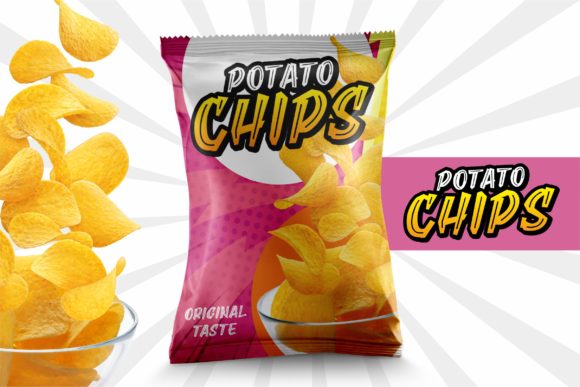
Introducing Leader Kids Font: Elevate Your Designs with a Fun and Unique Display Font
In the world of design, fonts play a crucial role in conveying the message and tone of a project. A well-chosen font can make all the difference in creating a lasting impression on the audience. If you’re looking for a font that can add a touch of fun and uniqueness to your designs, look no further than Leader Kids Font. In this article, we’ll explore the features and benefits of Leader Kids Font and how it can elevate a wide range of design projects to the highest level.
What is Leader Kids Font?
Leader Kids Font is a fun and unique display font designed to add a playful touch to your designs. Its distinctive style makes it perfect for a variety of projects, including branding, headings, wedding designs, invitations, signatures, logos, labels, and more. Whether you’re a designer, entrepreneur, or DIY enthusiast, Leader Kids Font is an excellent choice for anyone looking to create visually appealing and engaging designs.
Key Features of Leader Kids Font
- Unique and Fun Design: Leader Kids Font boasts a one-of-a-kind design that’s sure to grab attention. Its playful style is perfect for designs that require a touch of whimsy and personality.
- Highly Versatile: This font is incredibly versatile and can be used for a wide range of projects, from branding and advertising to wedding designs and personal invitations.
- Easily Readable: Despite its playful design, Leader Kids Font is easily readable, making it perfect for headings, titles, and short paragraphs of text.
Benefits of Using Leader Kids Font
Using Leader Kids Font can bring numerous benefits to your designs. Here are some of the advantages of incorporating this font into your projects:
1. Adds a Touch of Personality
Leader Kids Font adds a touch of personality to your designs, making them more engaging and memorable. Its unique design ensures that your projects stand out from the crowd and leave a lasting impression on your audience.
2. Enhances Brand Identity
For businesses and entrepreneurs, Leader Kids Font can be an excellent choice for branding and advertising projects. Its playful design can help create a friendly and approachable brand image, which is perfect for companies that want to connect with their audience on a personal level.
3. Perfect for Wedding Designs and Invitations
Leader Kids Font is also an excellent choice for wedding designs and invitations. Its elegant yet playful design makes it perfect for creating beautiful and memorable wedding materials, including invitations, programs, and place cards.
How to Use Leader Kids Font in Your Designs
Using Leader Kids Font in your designs is easy. Here are some tips to get you started:
1. Pair it with Other Fonts
Leader Kids Font can be paired with other fonts to create a unique and visually appealing design. Try pairing it with a serif font for a classic look or a sans-serif font for a modern feel.
2. Experiment with Different Sizes and Colors
Leader Kids Font can be used in various sizes and colors to create a dramatic effect. Experiment with different sizes and colors to find the perfect combination for your design.
3. Use it for Headings and Titles
Leader Kids Font is perfect for headings and titles. Use it to create eye-catching headings that grab attention and add a touch of personality to your designs.